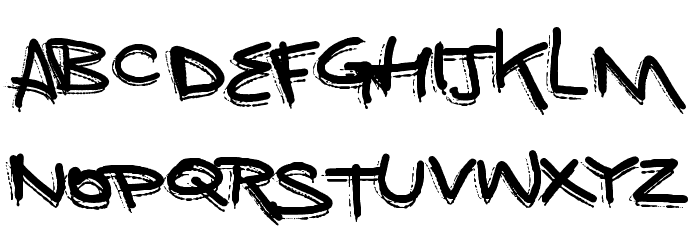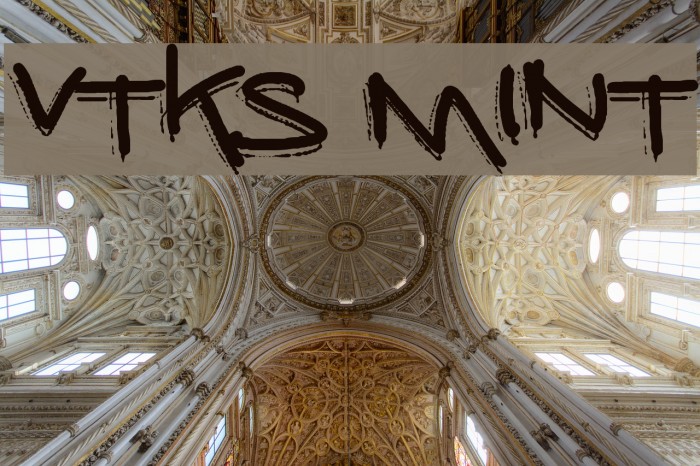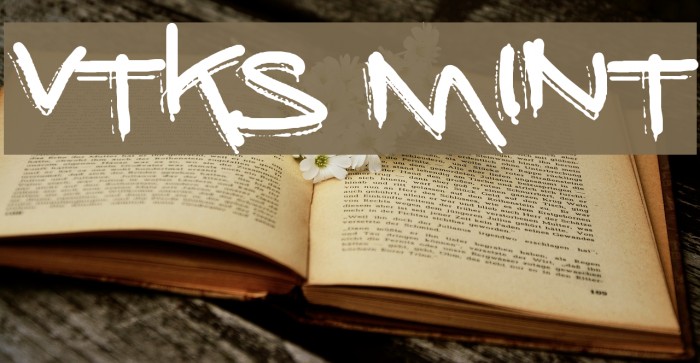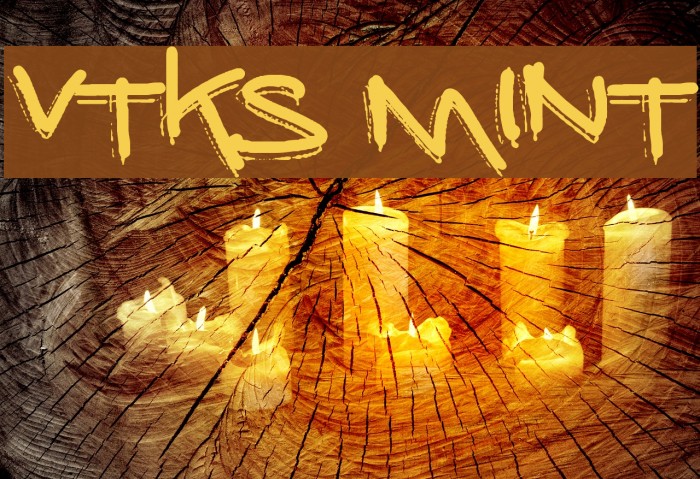
vtks mint Font
This font features a bold, graffiti-inspired style with a rough, hand-drawn appearance. The letters have a dynamic and energetic feel, characterized by uneven strokes and a slightly distressed texture. The uppercase and lowercase letters maintain a consistent style, with exaggerated angles and sharp edges that give the font a rebellious and urban aesthetic. The numbers and special characters follow the same design principles, ensuring a cohesive look across all elements. This font is ideal for projects that require a bold and edgy statement.
A bold, graffiti-inspired font with a rough, hand-drawn appearance.
- Proposed Projects: Perfect for street art designs, urban-themed posters, music album covers, and edgy branding projects.
- Overall Style: Urban, Edgy, Graffiti
- Use Case: Logos, Posters, Headlines